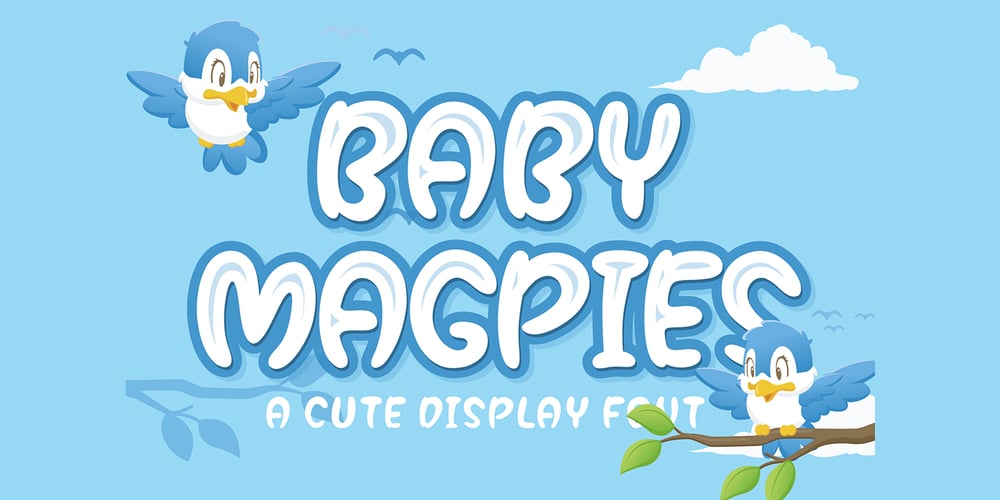
Baby Magpies Font Family was designed by Sipanji and published by Sipanji21. Baby Magpies contains 1 styles and family package options. this baby magpies font, Made with love and joy. Comic look, Bold, Thick, so it will make your design more beautiful, cute, fun, and colorful. you can use this font for any design, such as logo, poster, advertise, packaging, and much more. make your design awesome with our font.